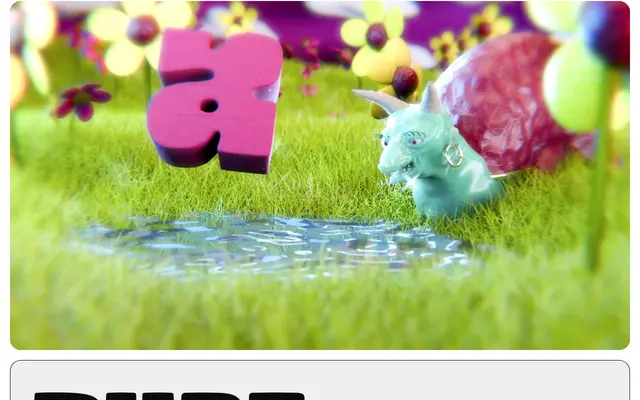
Rube
Big Fog Foundry · Brian Dove · 2025
Rube specimen from Big Fog Foundry
A unicase, single-weight display face with blocky, nearly square letterforms suited to logotypes, packaging and comic-inflected headline work.
Designed by Brian Dove and released in April 2025, it comes in one chonky style with forms that sit somewhere between a rubber stamp and a cartoon prop. The unicase design collapses the distinction between capitals and lowercase into a single unified register, making it well-suited to stacked wordmarks, candy packaging and onomatopoeic sound-effect text. Latin Extended coverage supports a broad range of Western European languages.
A single-weight unicase display face with chunky, nearly square letterforms designed explicitly for large-scale, short-burst settings such as logotypes and packaging. Its exaggerated, cartoon-inflected forms place it firmly in the display category with no conventional uppercase/lowercase distinction.